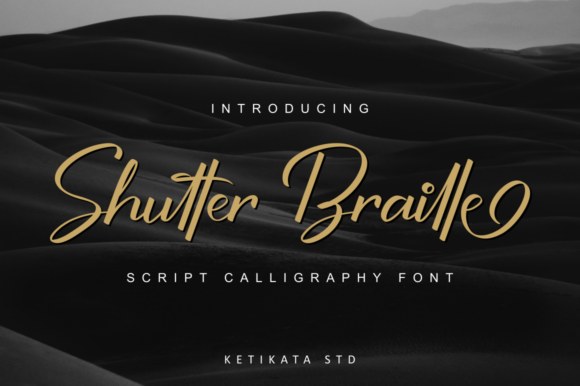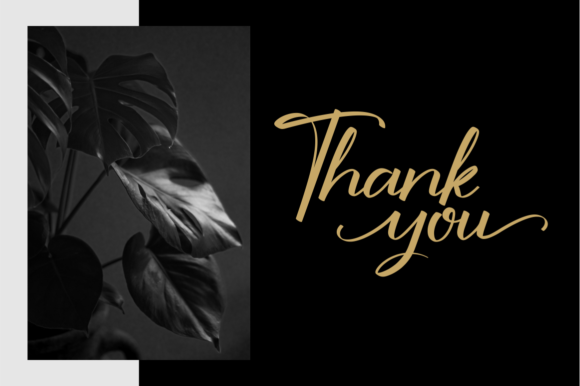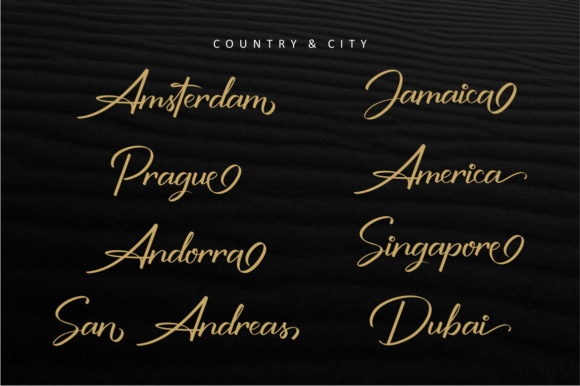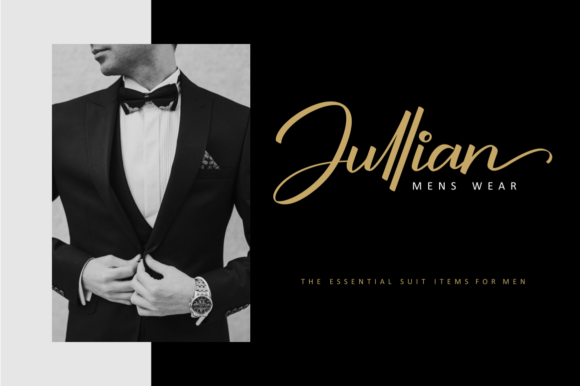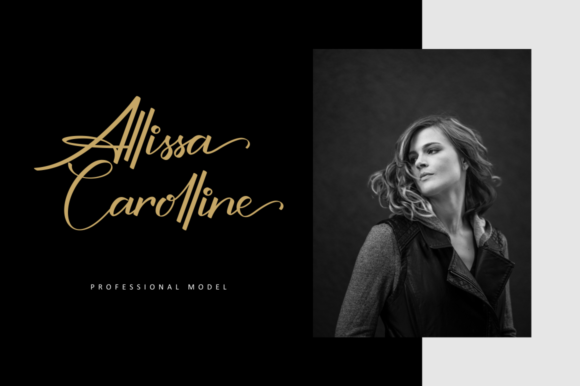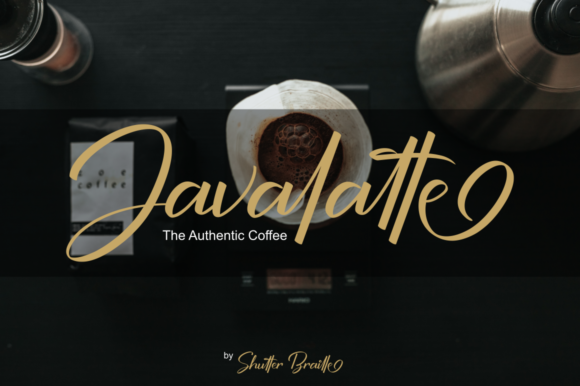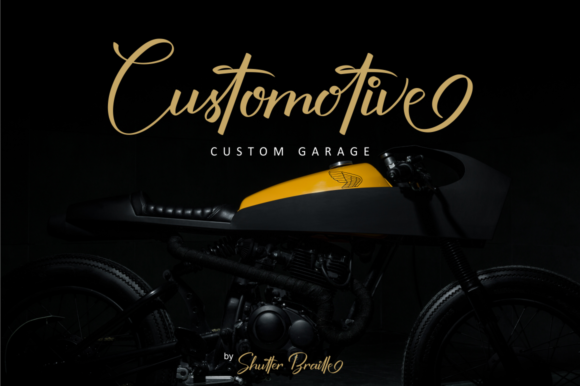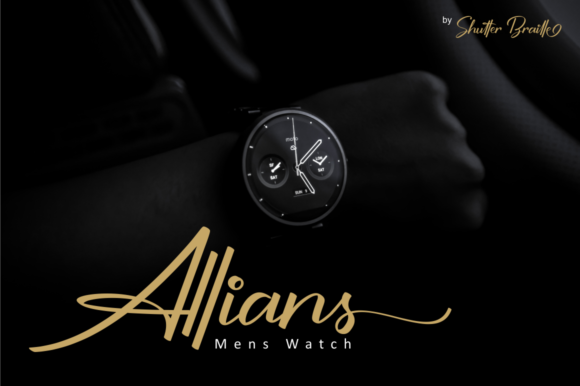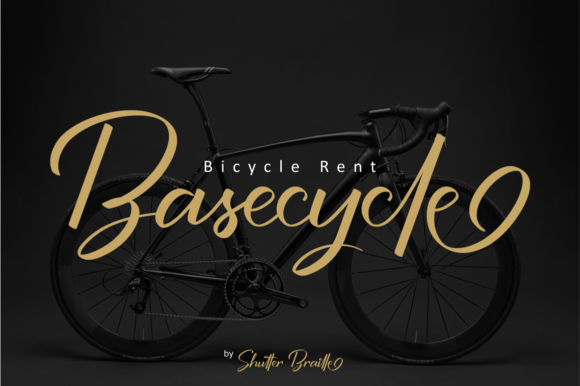
Shutter Braille Script Font
About Shutter Braille Script Font
The Shutter Braille is a striking calligraphy font. It was carefully crafted from a sketch, and has a young and energetic feel which can be used to create an unique logo, name tag, quote, business card, and much more!
It includes start and ending swashes, and middle swashes for some letters. It’s very easy to use, just rely on your creativity !